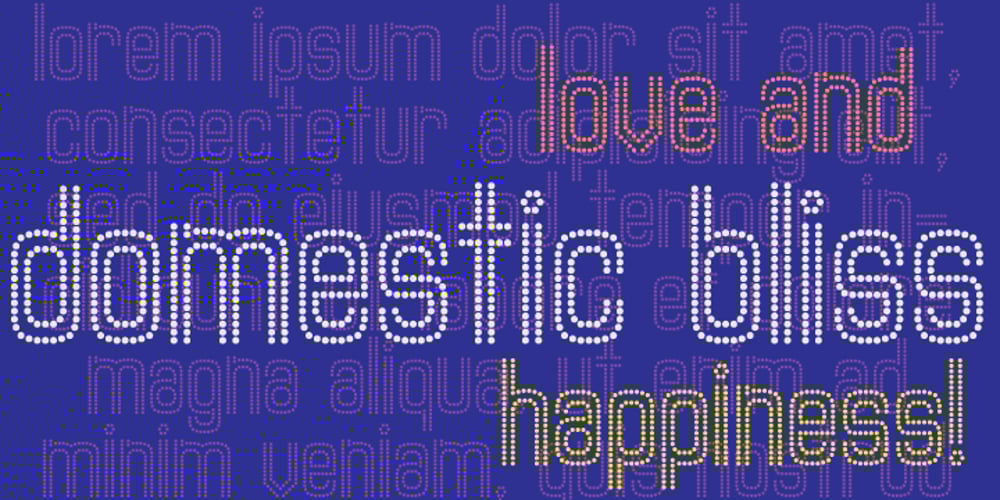
Domestic Bliss
Domestic Bliss font
Domestic Bliss Font Family was designed by Wilson Thomas and published by Funk King. Domestic Bliss contains 1 styles and family package options. Domestic Bliss is a perky dot fonts that can bring some fun and bounce to your project.